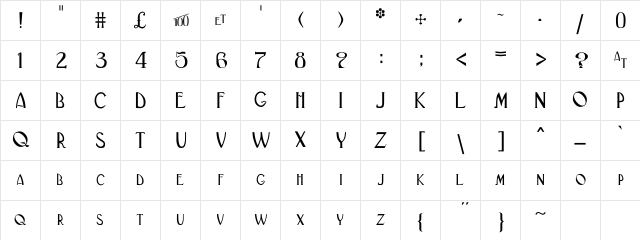
BlackAdderII-No Regular
Design Context for BlackAdderII-No
BlackAdderII-No is a composed and adaptable typeface that performs quietly and consistently across a wide range of design contexts.